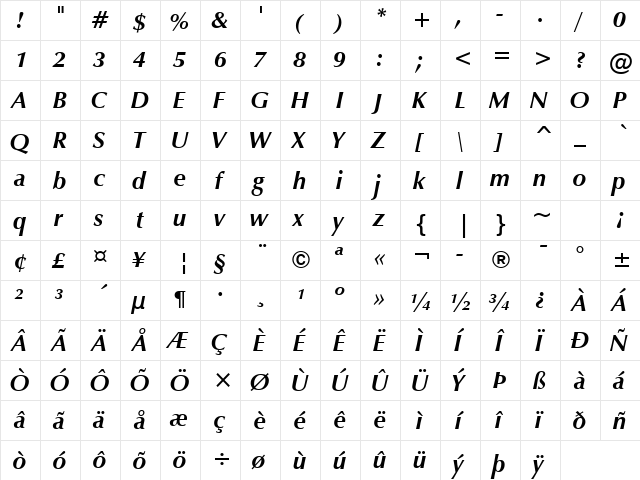
ZapfHumnst BT Bold Italic
Design Context for ZapfHumnst BT Typeface
ZapfHumnst BT takes a measured approach to typography — its balanced proportions and neutral character make it a reliable workhorse for both digital and print work. The slanted form adds forward momentum and visual energy. The heavy weight commands attention and anchors typographic hierarchies.
Pro Tip: Use ZapfHumnst BT for emphasis, pull quotes, and subheadings where its slanted energy can add rhythm to the layout.